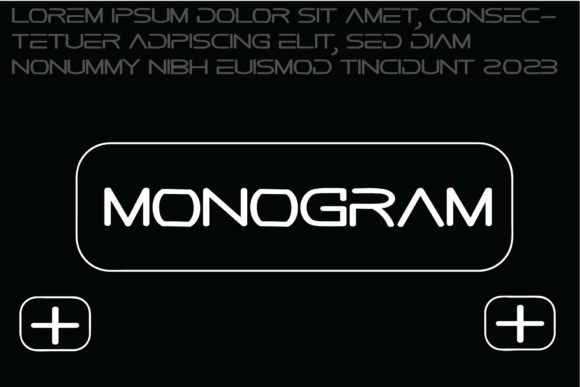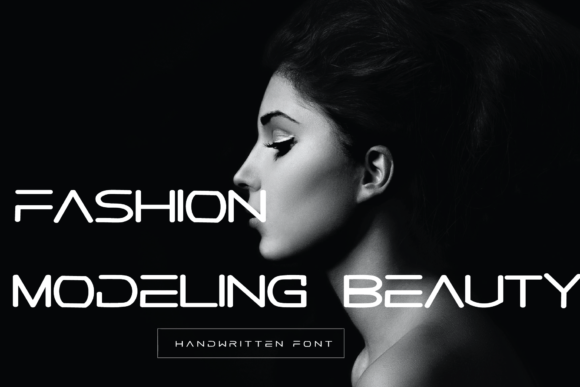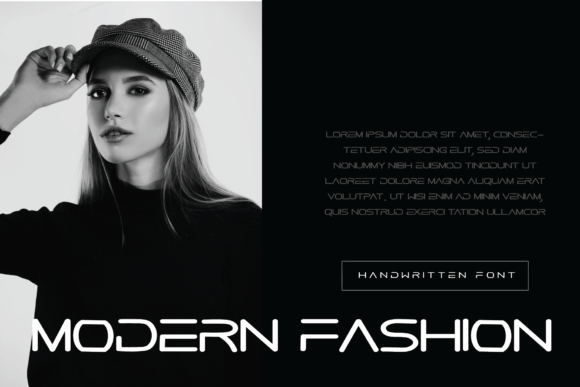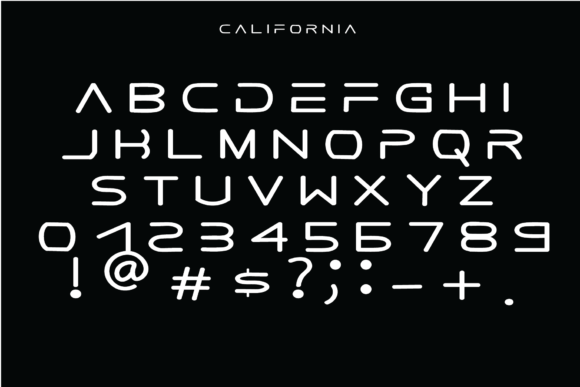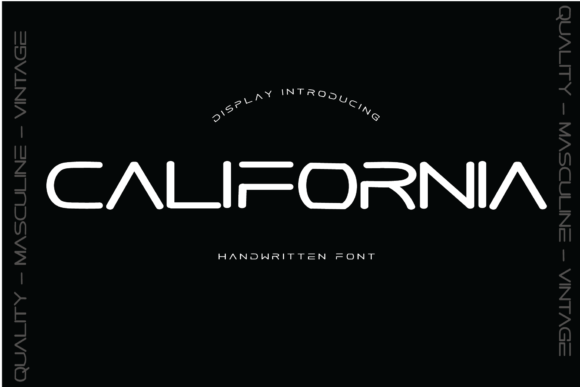
Introducing California Font: Elevate Your Design with Elegance and Luxury
California Font is a stunning, high-end typeface that embodies the essence of sophistication and refinement. This elegant font is designed to add a touch of luxury to any design project, making it perfect for creatives, designers, and crafters looking to elevate their work. In this article, we’ll explore the features, benefits, and uses of California Font, and why it’s a must-have for anyone looking to create high-quality designs.
The Essence of California Font
California Font is an authentic typeface that exudes elegance and poise. Its sleek lines, refined curves, and precise craftsmanship make it a standout in the world of typography. This font is designed to evoke the feeling of luxury, sophistication, and glamour, making it perfect for high-end branding, advertising, and design projects.
Key Features of California Font
- Elegant and Refined: California Font boasts a sleek and sophisticated design that adds a touch of luxury to any project.
- High-Quality Typography: With precise craftsmanship and attention to detail, this font is perfect for high-end designs.
- Versatile: California Font can be used for a wide range of design projects, from branding and advertising to packaging and digital media.
- Easy to Read: Despite its elegant design, California Font remains highly legible, making it perfect for body text and headlines.
Benefits of Using California Font
So, why choose California Font for your design projects? Here are just a few benefits of using this stunning typeface:
- Adds Luxury and Sophistication: California Font instantly elevates your design, adding a touch of luxury and sophistication.
- Enhances Brand Image: With its high-end design, California Font can help enhance your brand image and create a lasting impression.
- Versatile and Adaptable: This font can be used for a wide range of design projects, from print to digital media.
- Standout Typography: California Font is designed to stand out from the crowd, making your design projects more engaging and memorable.
Who Can Benefit from California Font?
California Font is perfect for a wide range of designers, crafters, and creatives, including:
- Graphic Designers: Add a touch of luxury to your branding, advertising, and design projects.
- Crafters: Elevate your crafting projects, such as card making, scrapbooking, and DIY tutorials.
- Digital Designers: Use California Font to create stunning digital media, including websites, social media graphics, and more.
- Branding Experts: Create high-end branding materials, such as logos, business cards, and letterheads.
How to Use California Font
Using California Font is easy! Here are a few tips to get you started:
- Pair with Other Fonts: Combine California Font with other fonts to create stunning typography combinations.
- Play with Sizes: Experiment with different font sizes to create visual hierarchy and emphasis.
California Font is a stunning, elegant typeface that adds a touch of luxury to any design project. With its high-quality typography, versatility, and ease of use, this font is perfect for designers, crafters, and creatives looking to elevate their work. Whether you’re working on branding, advertising, or digital media, California Font is a must-have for anyone looking to create high-quality designs that stand out from the crowd.